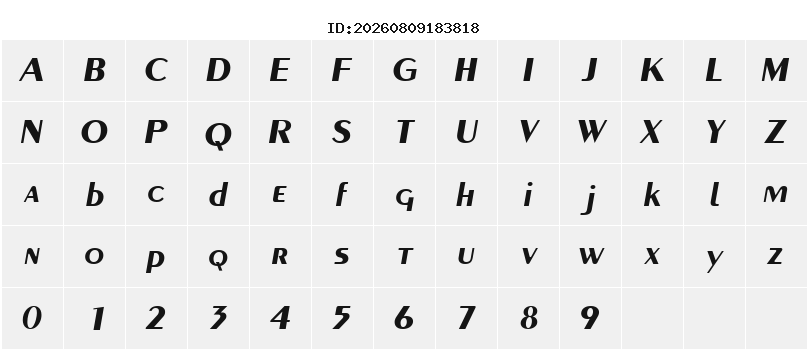
About Paquete SSi.ttf
Paquete SSi.ttf is a modern, elegant sans-serif font designed for ultimate readability and visual harmony. Perfect for branding, headlines, web design, and print materials.